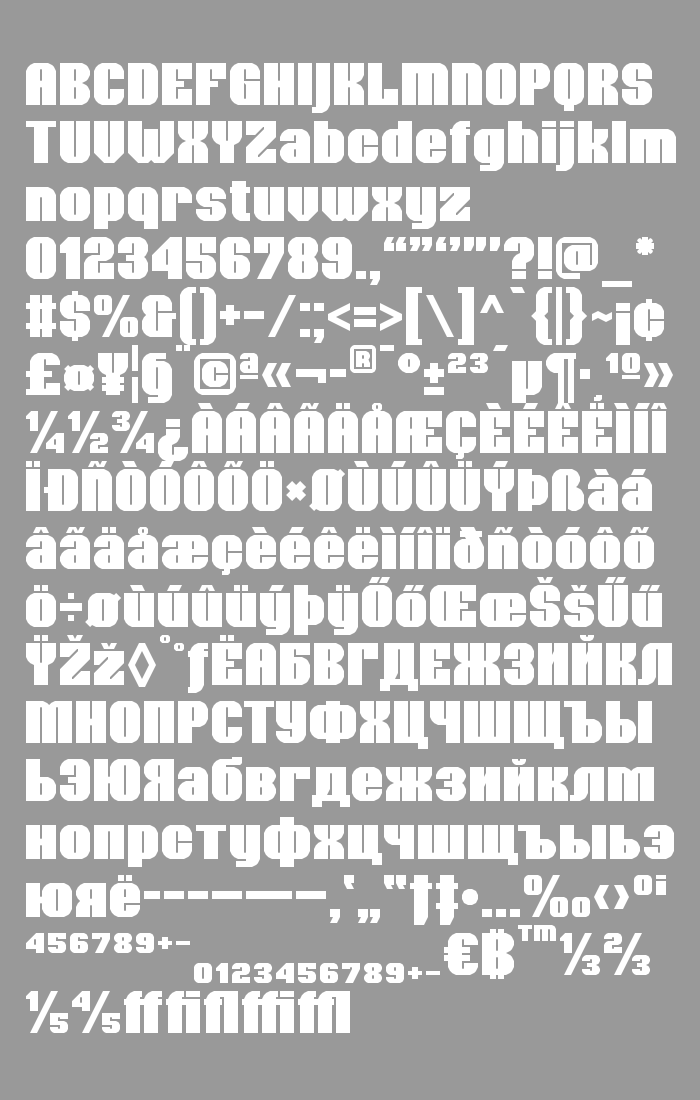
Great! 10/10+fav. Use a 1:4 angle for max smoothness and a side note: Do you intend to use uneven strokes for curves (such as C)?
This is a rework of an early font of mine from 2009. Not much noticeable difference at first sight. Keen eyes, however, may discover dozens of small adjustments, minor changes. I wanted to make the design more consistent, and the text pleasantly flowing.
My second goal was to make the character set more comprehensive. More punctuation marks, special characters, full set of fractions, superscript, and subscript numbers have been added, as well as a dedicated glyph for Bitcoin.
@j4s13: Thank you for your feedback and rating. I don't want to achieve maximum smoothness. After spending a few years with Fontstruct I've developed a taste for the rugged polygonal look. And no uneven strokes.
I'm still not sure about a few glyphs. I leave it now as they are, and revisit them later. I'm considering to add a Cyrillic set, and/or make a thin and a super fat version.
A strong design, with a very full set of characters.
Had you considered a rounded 'W' (i.e. a 'double U')?
I was thinking about full superscript digits. Then you can create fractions like 123456789/11239 or something. Possibly a version with discretionary ligatures like st or ch? Is your em dash 12 pixels wide?
@p2pnut: Thank you for your comment and generous rating. The rounded W is a possibility, even as an alternate glyph, but I don't see the point: why to make the W look like UU if it could look like VV quite comfortably. The W is another sort of V after all. I'm fully aware of the fact I've made rounded Ws many times. Perhaps, it is just a matter of taste. I like both versions, but feel the one with diagonal strokes more authentic.
@j4s13: All superscript and subscript digits are included (0123456789); you may find 123 elsewhere on the character map. To create any fraction we may need a set of small numbers on the baseline (not subscript) and a forward slash. Discretionary ligatures: since it is quite a heavy typeface, I can't really think of any application where one would need such sophisticated feature. I would reserve st, ch ligatures for loftier fonts, e.g. Garamond or Zapfino.
Em dash: thank you for asking. I think what you really meant was 12 points, not pixels. Or bricks? I have to check it and make adjustments, if necessary. Thanks again for your comment. With typeface design even the tiniest detail have importance.
@Frodo7 at 12 points, It's pixel view.
Cyrillic set has been added. Minor changes to a few Latin glyphs.
i found the upside down dagger
The inverted dagger is part of the supplemental punctuation block. —Off topic, I really like this. My only suggestion would be to have "de" mirror "el", but with the underbar, of course. :)
@TCWhite: I'm sorry, I don't really understand your suggestion: to have "de" mirror "el", but with the underbar. Are you referring to the Cyrillic Д and Л?  I've changed them already. I didn't like the first version either.
Yes, that's what I was referrencing. And yes, it looks much better. :)
Can the lozenge go in the lozenge...
Also, Can you add the Bollar Sign glyph?